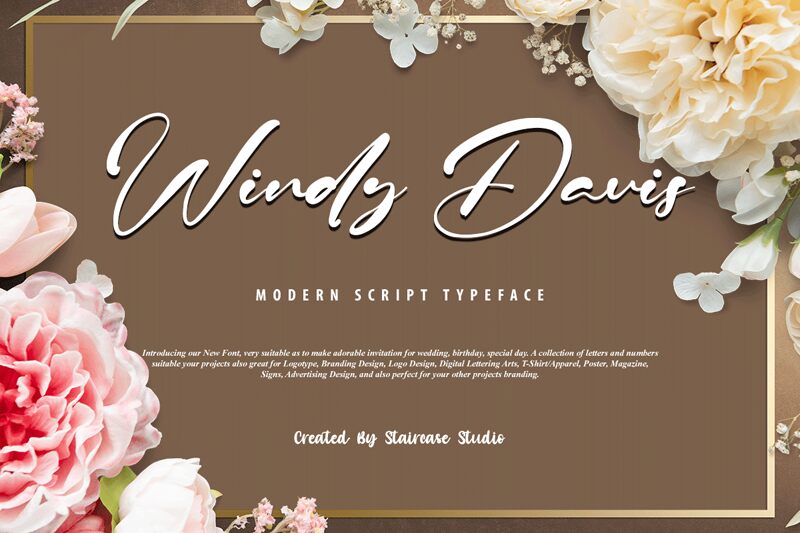
Windy Davis
Windy Davis, a modern script font designed by Staircase Studio, is perfect for any creative project. Its light weight gives a unique and elegant touch to any project from wedding invitations to logo design.